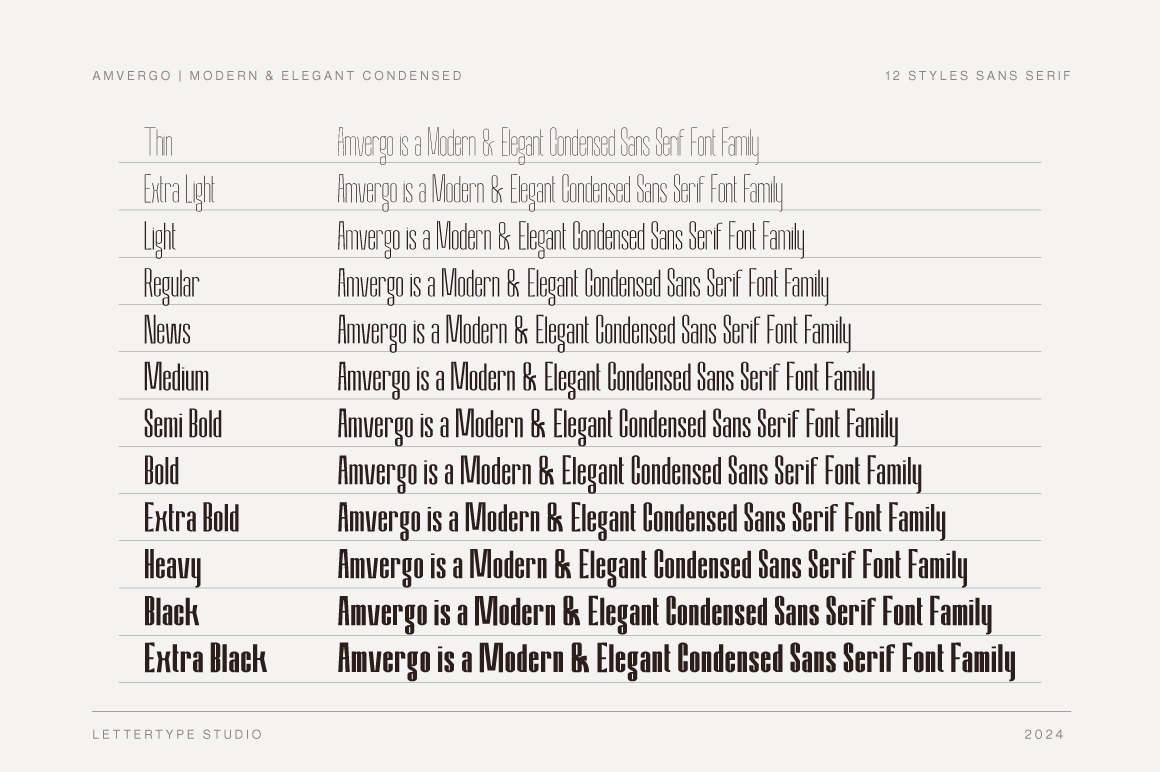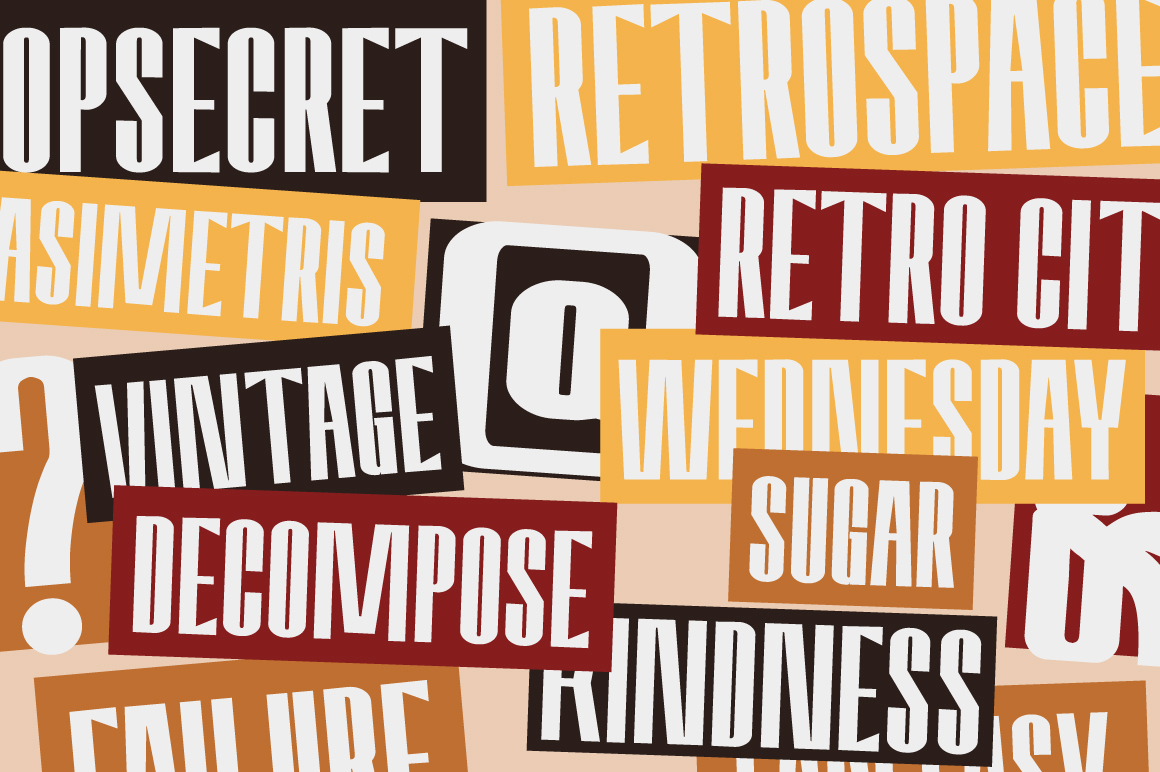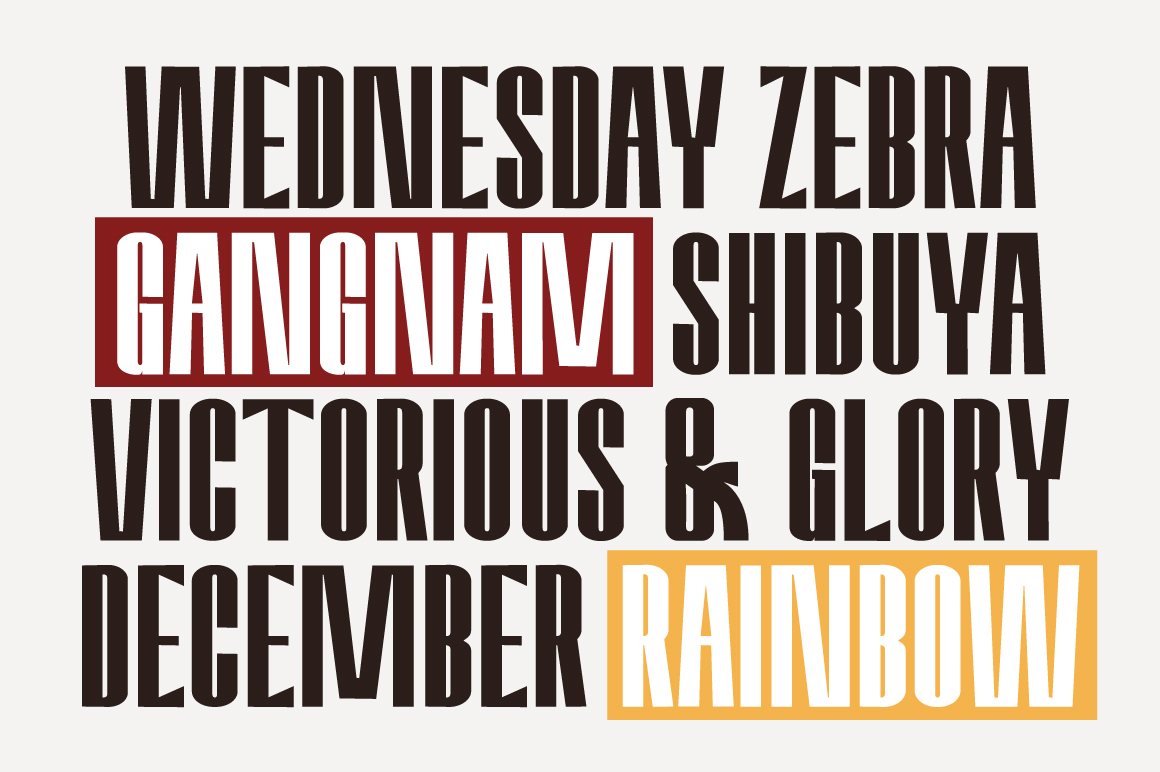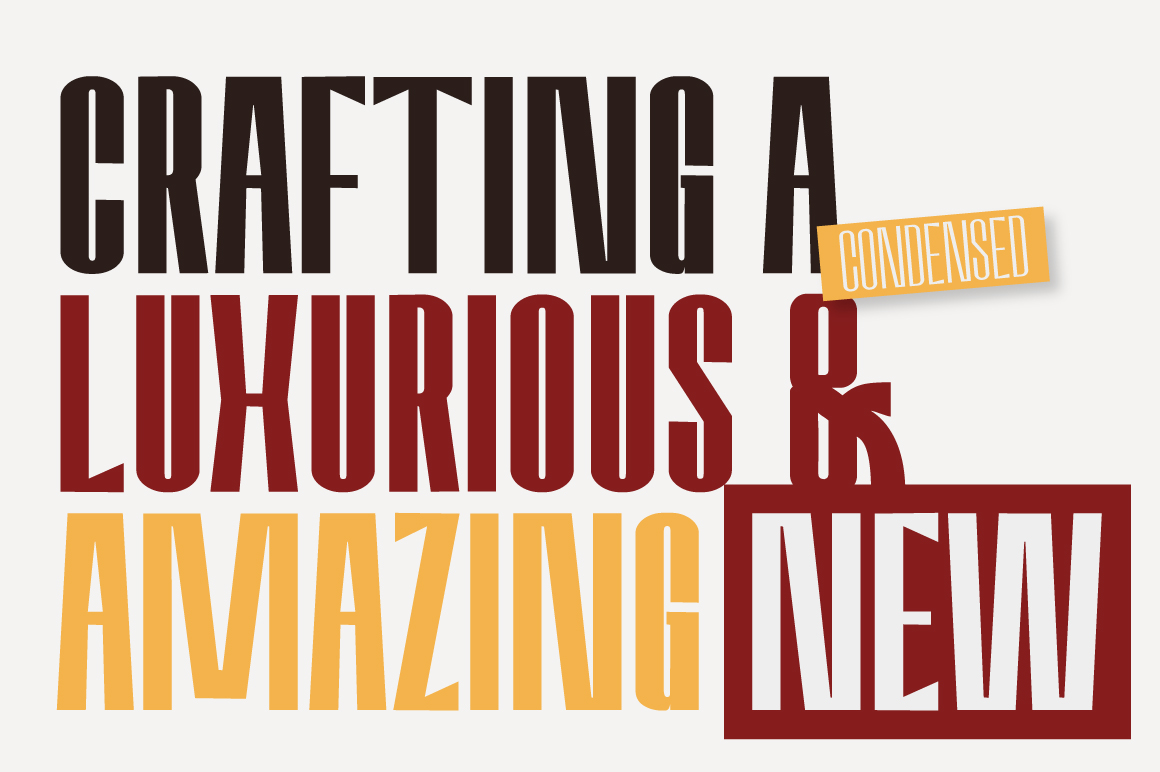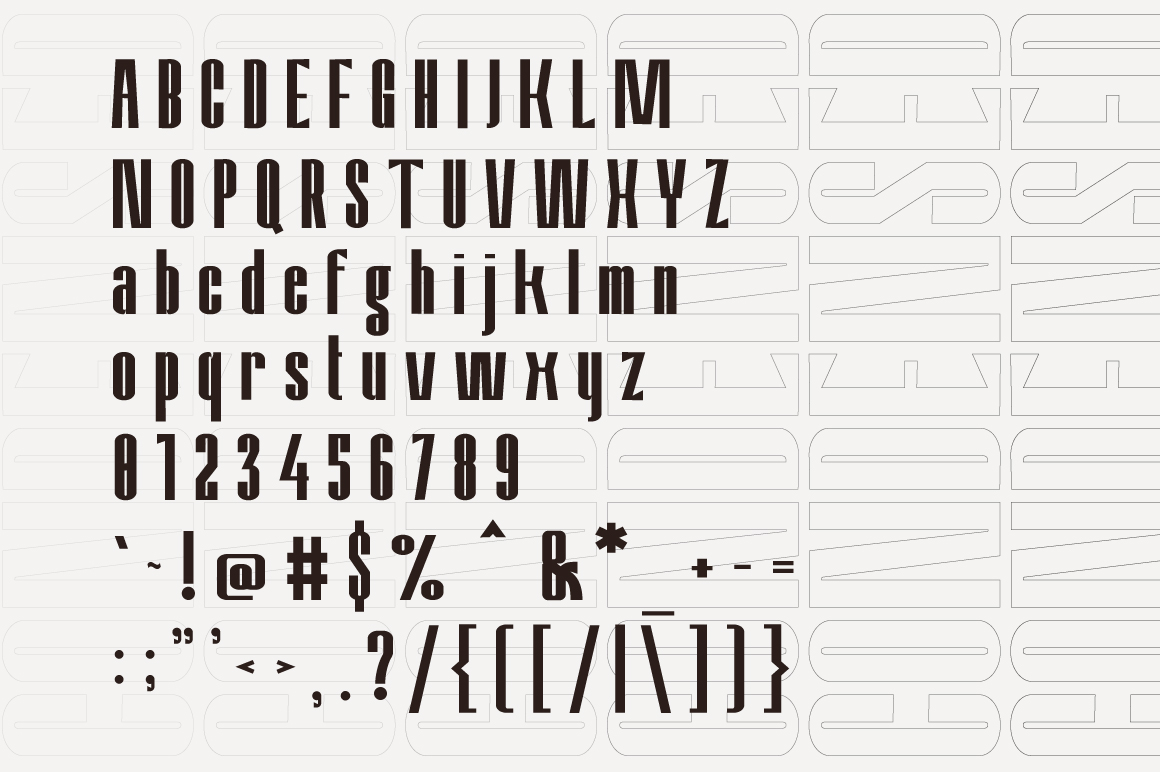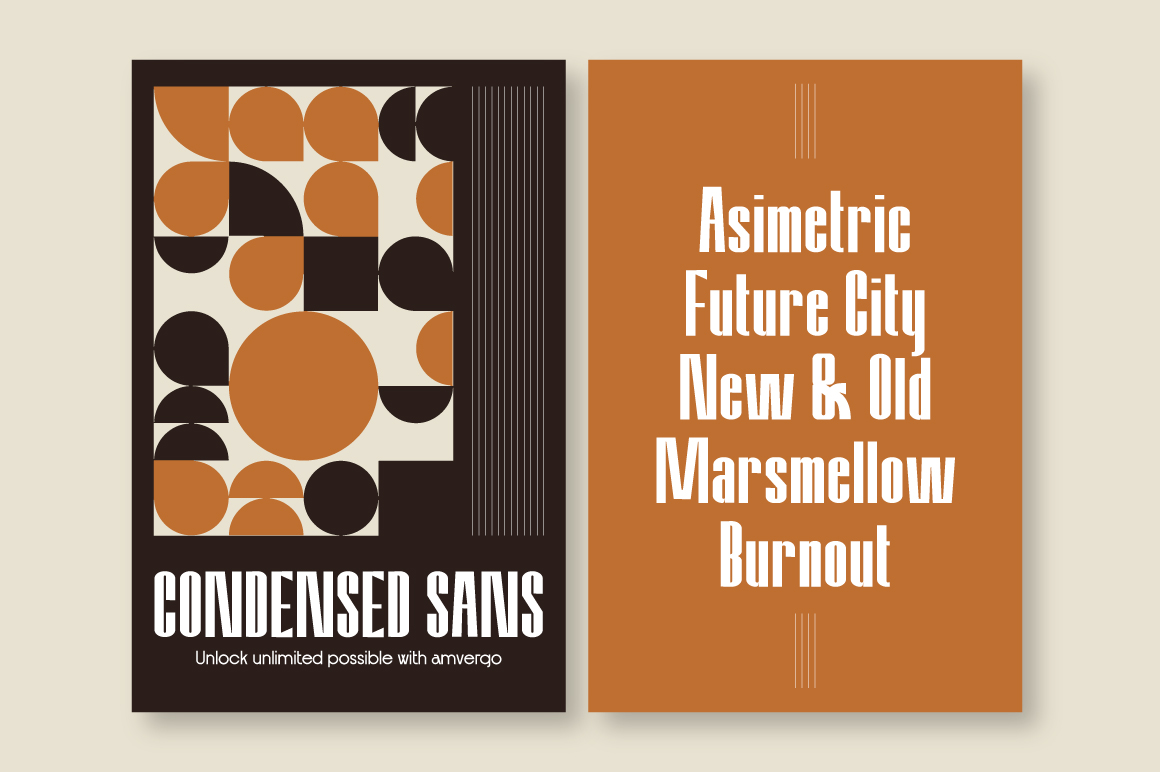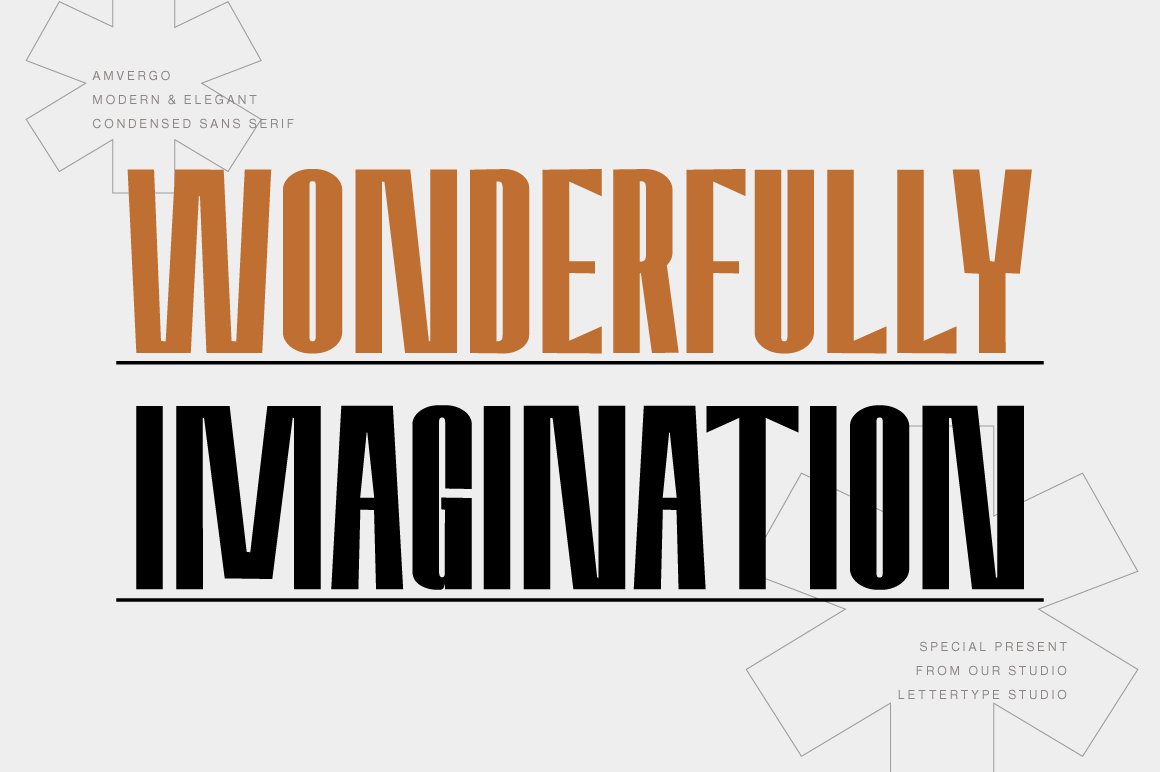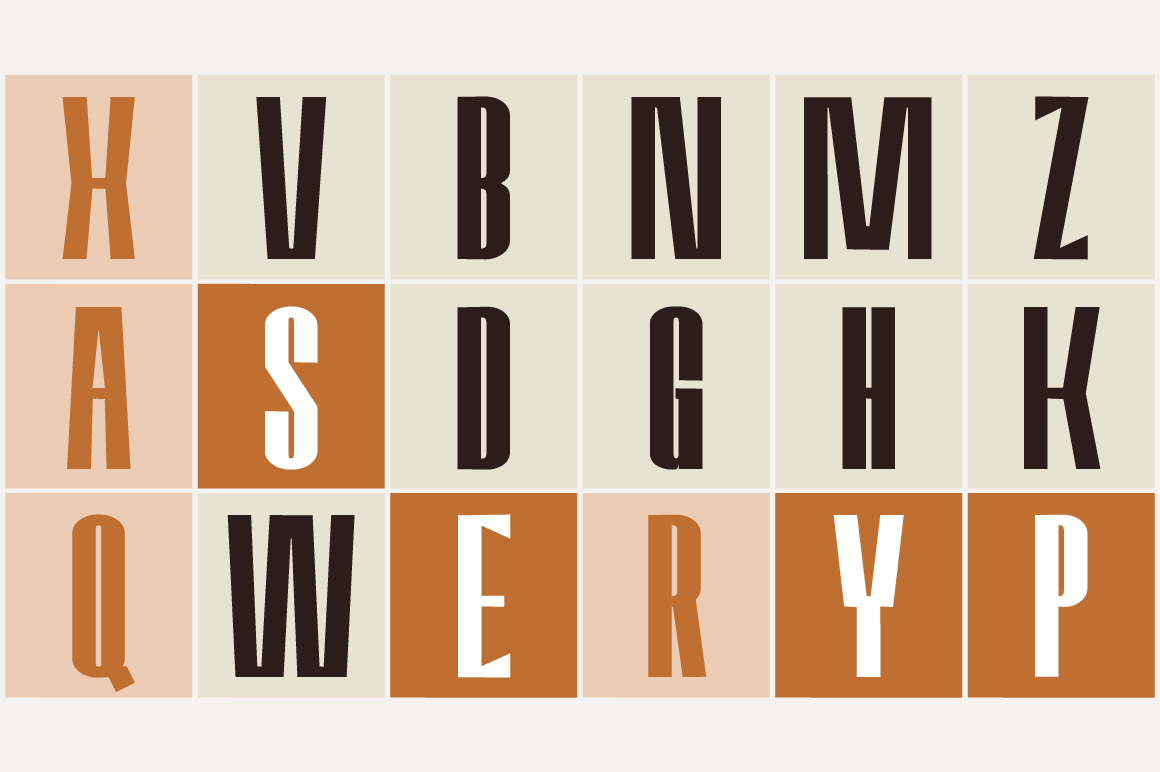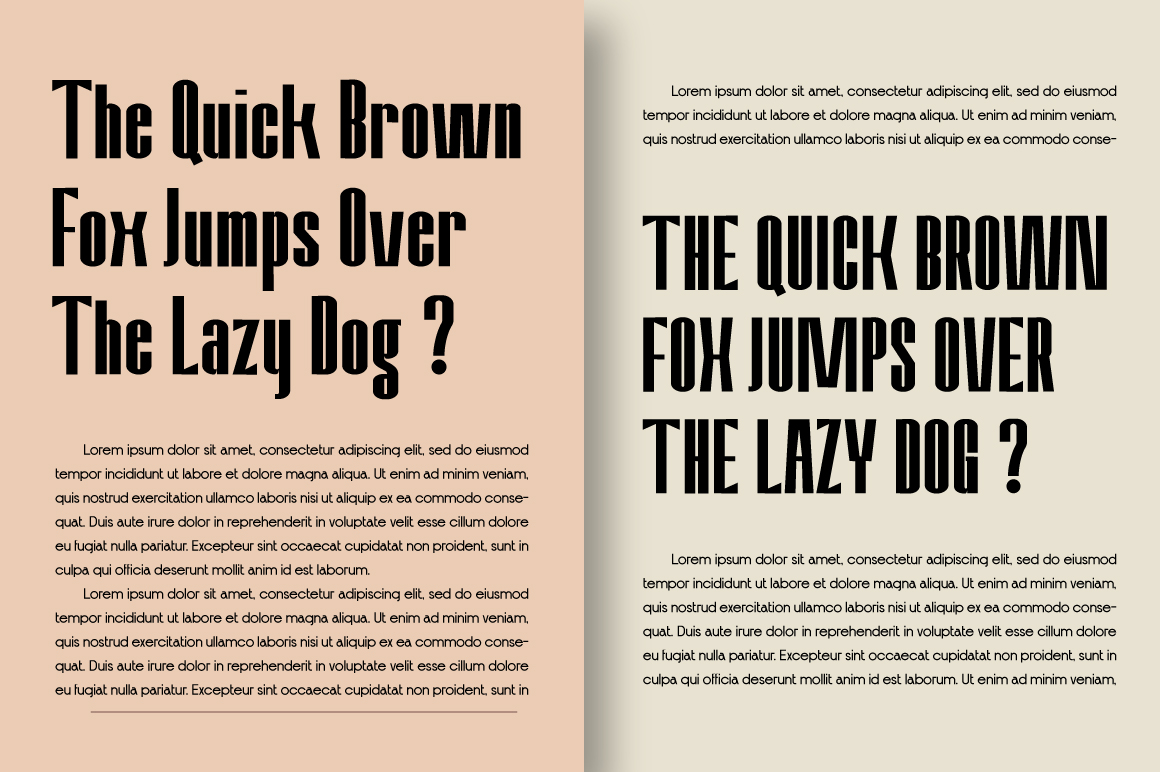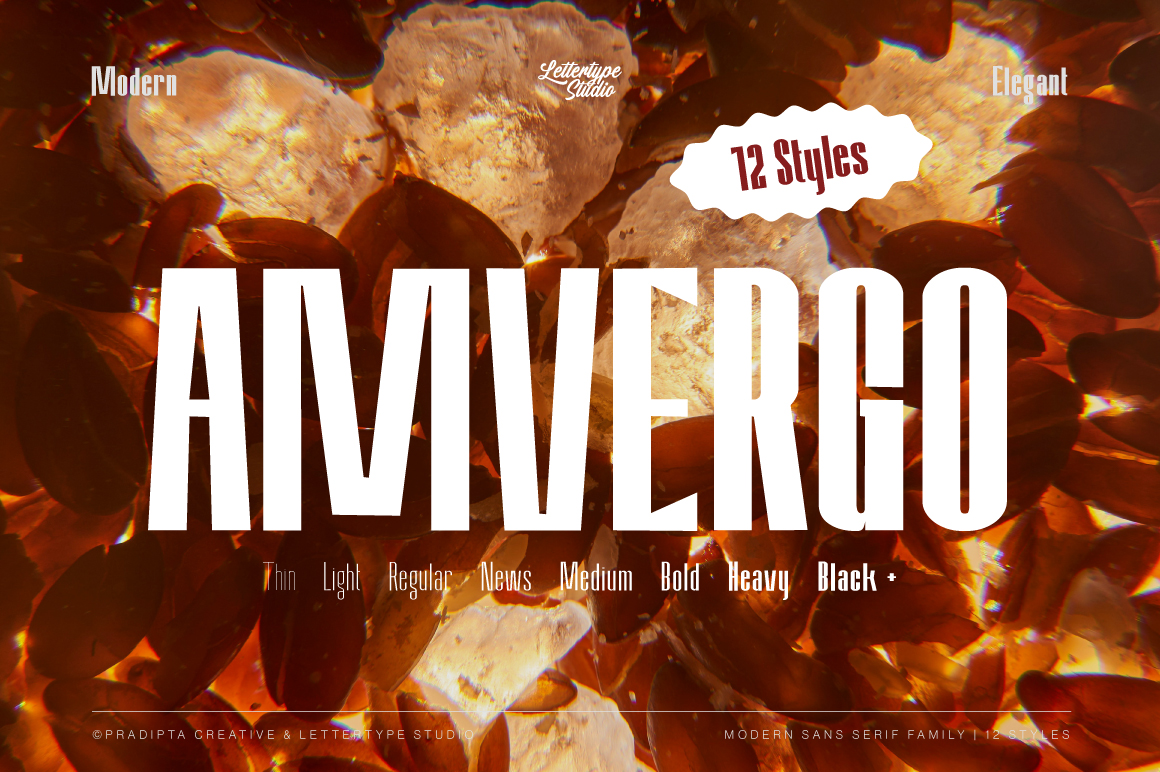
Amvergo is an elegant condensed sans serif font family designed for modern branding and editorial use. With its refined proportions and geometric balance, it delivers a professional, stylish, and confident look that stands out in both print and digital media.
Featuring 12 styles from Thin to Extra Black, Amvergo offers flexibility and sophistication for headlines, magazines, and corporate identities. Its clean lines and timeless appeal make it a go-to font for designers who value minimalism and visual precision.
Amvergo Features:
• Lowercase & Uppercase
• Numerals & Punctuation
• Alternates & Ligature
• Multilingual Support
• Font Family (12 Styles, thin to extra black)
• Bold headlines, magazine titles & editorial layouts
• Fashion branding, posters & product packaging
• Minimalist logo design & corporate identity
• Web design, advertising & creative campaigns
• Modern typography projects with sleek condensed style